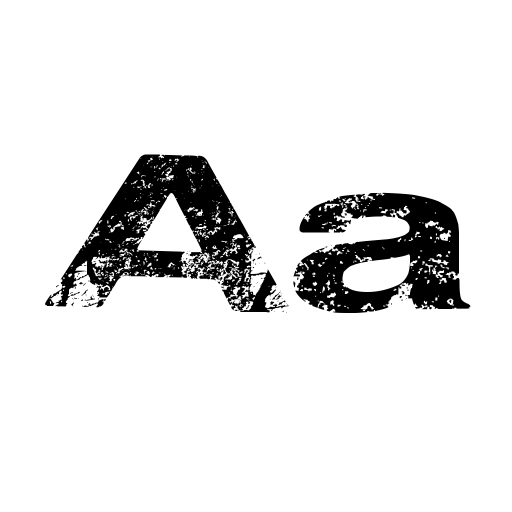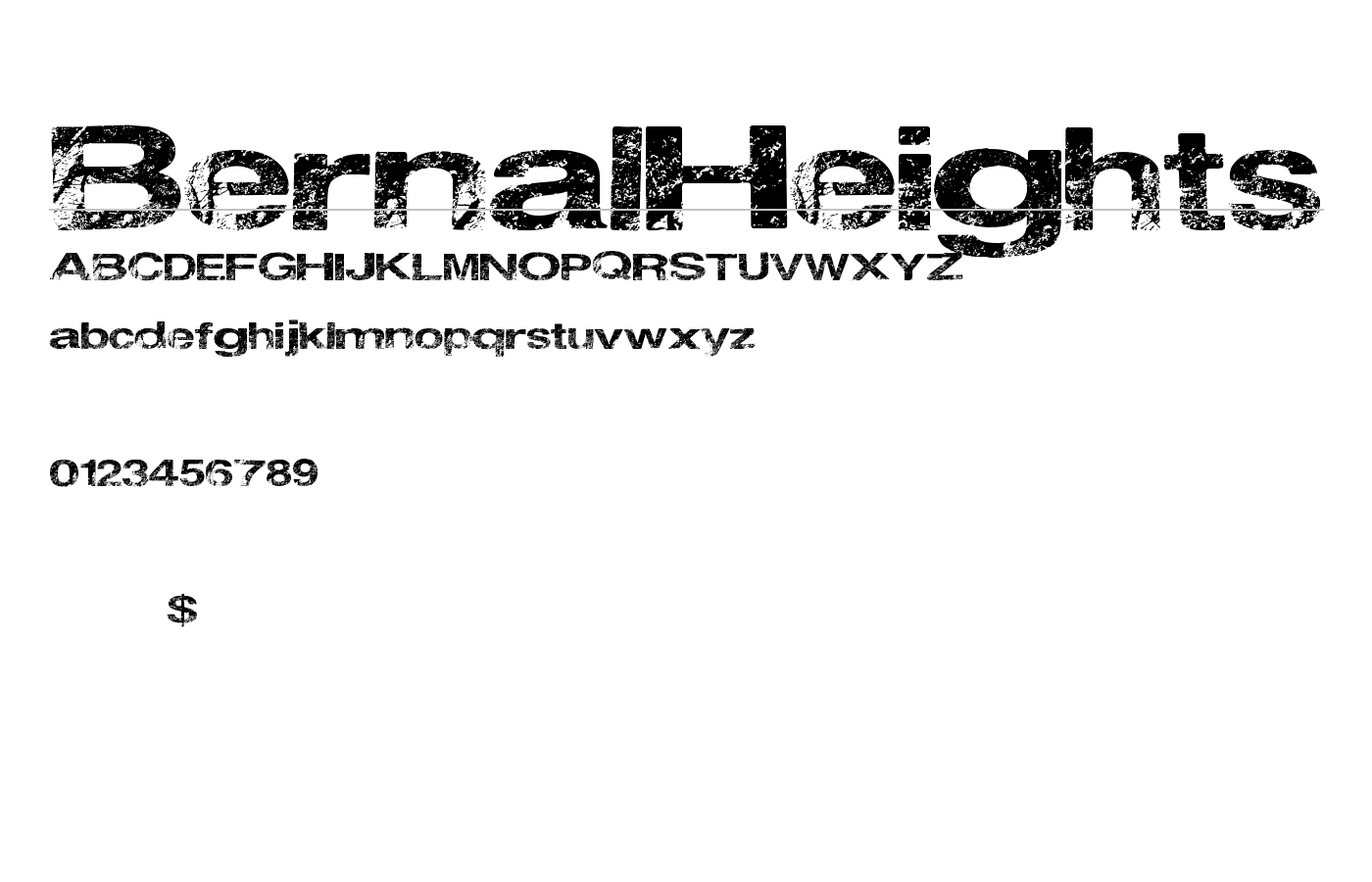
BernalHeights is a bold, distressed sans serif font with a gritty, textured appearance that conveys a sense of urban ruggedness and authenticity. Its sturdy, geometric letterforms combined with a worn, imperfect texture make it ideal for designs that want to evoke an industrial, vintage, or rebellious vibe. This font works well in posters, logos, and editorial projects where a strong, edgy statement is needed.
BernalHeights Font